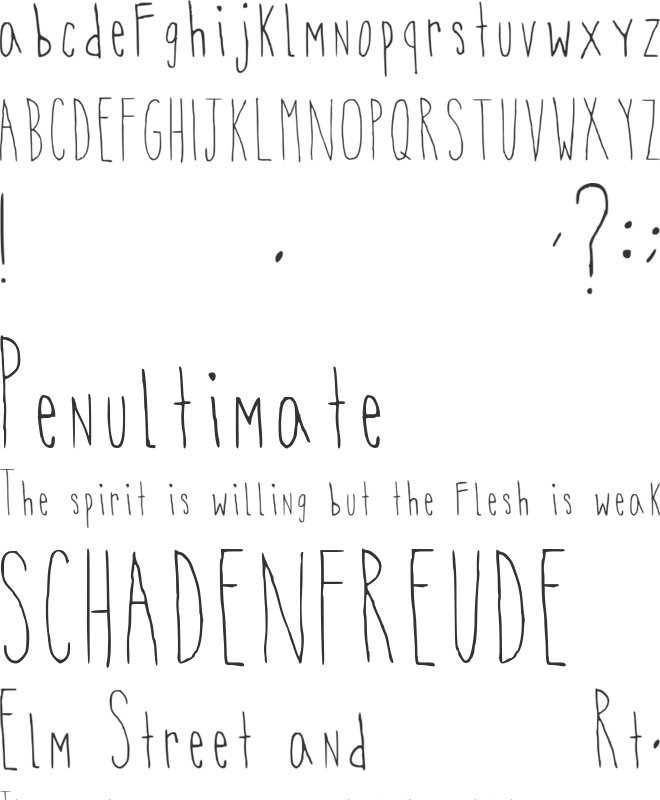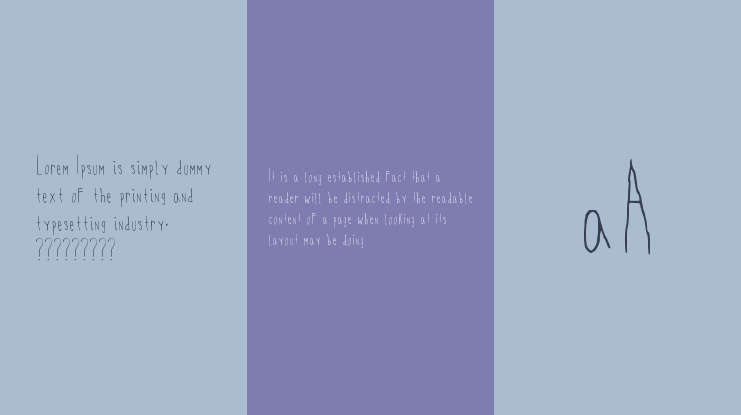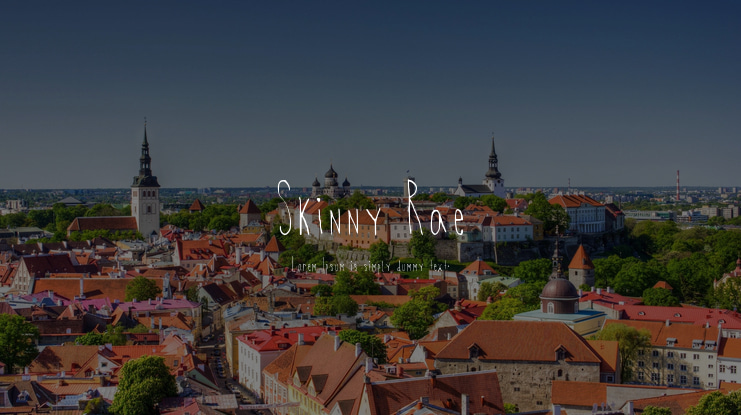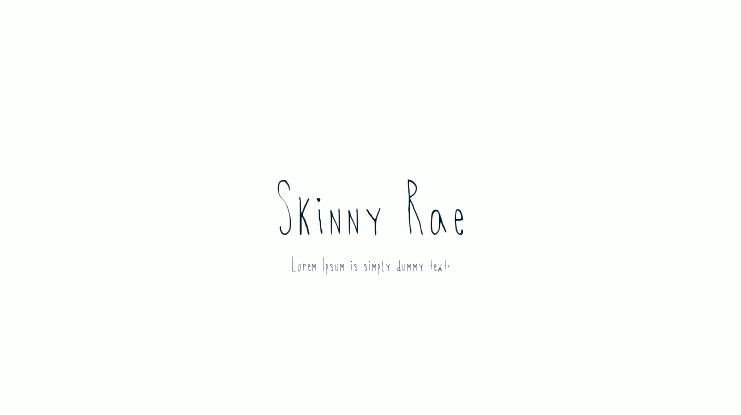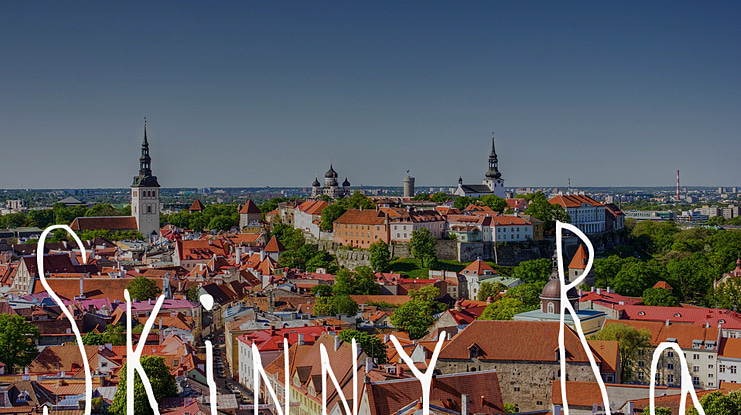
Skinny Rae Font
Please enjoy this version of my font, Skinny Rae. This is one of the only Rae inspired fonts on the market that comes with both lower and upper case letters. If you would like to use this font for commercial use, the price is $15 and can be paid for through my PayPal account which is linked here,